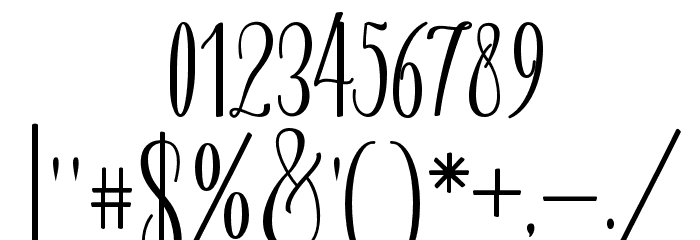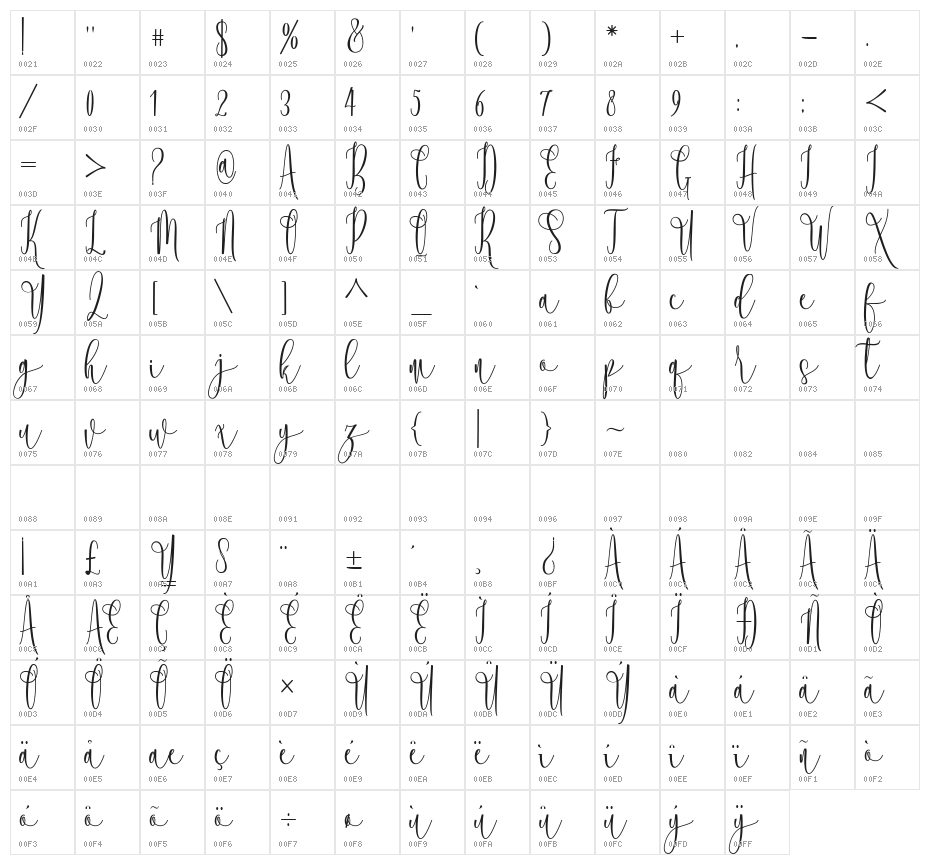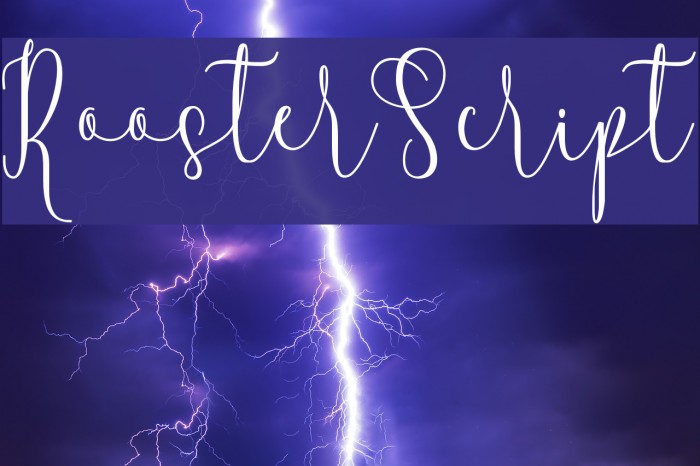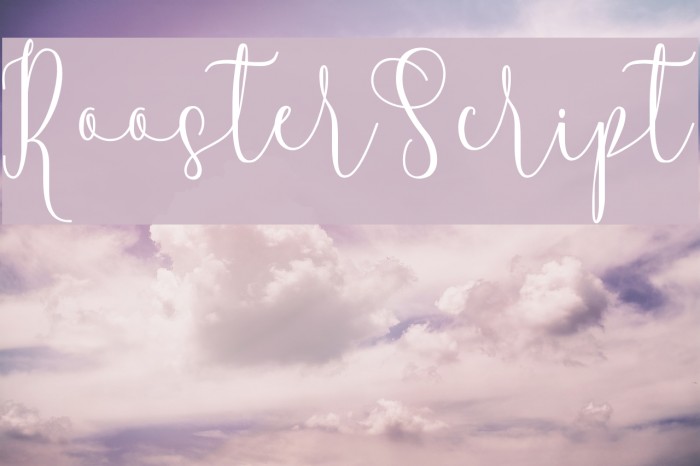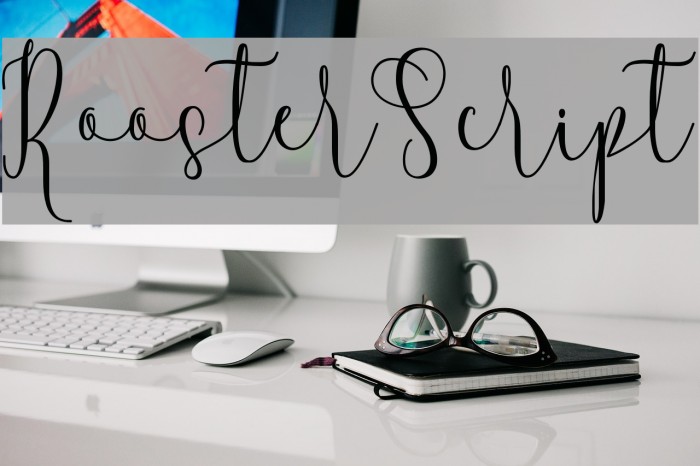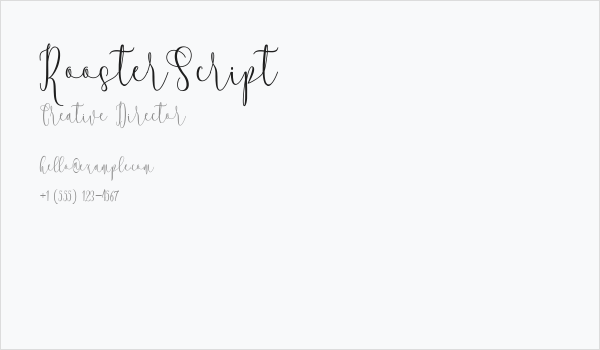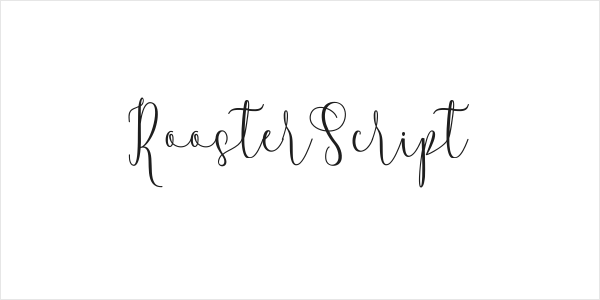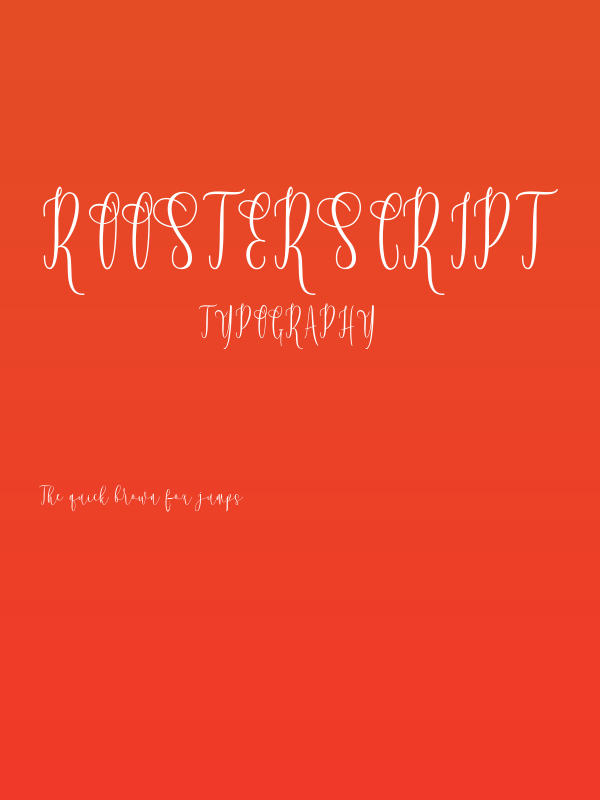
RoosterScript Font
RoosterScript Description
This font features a playful and elegant script style with a handwritten appearance. The letters are characterized by their flowing, cursive forms and distinctive loops, giving them a whimsical and artistic flair. The uppercase letters are tall and slender, while the lowercase letters maintain a consistent flow with a slightly more compact form. The numerals are designed to complement the letterforms, maintaining the same fluidity and style. Special characters are included, each crafted with the same attention to detail and artistic touch. The overall design is both sophisticated and approachable, making it suitable for a variety of creative applications.
| Proposed Projects | Ideal for wedding invitations, greeting cards, branding, and artistic projects. |